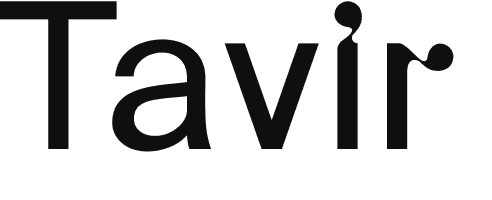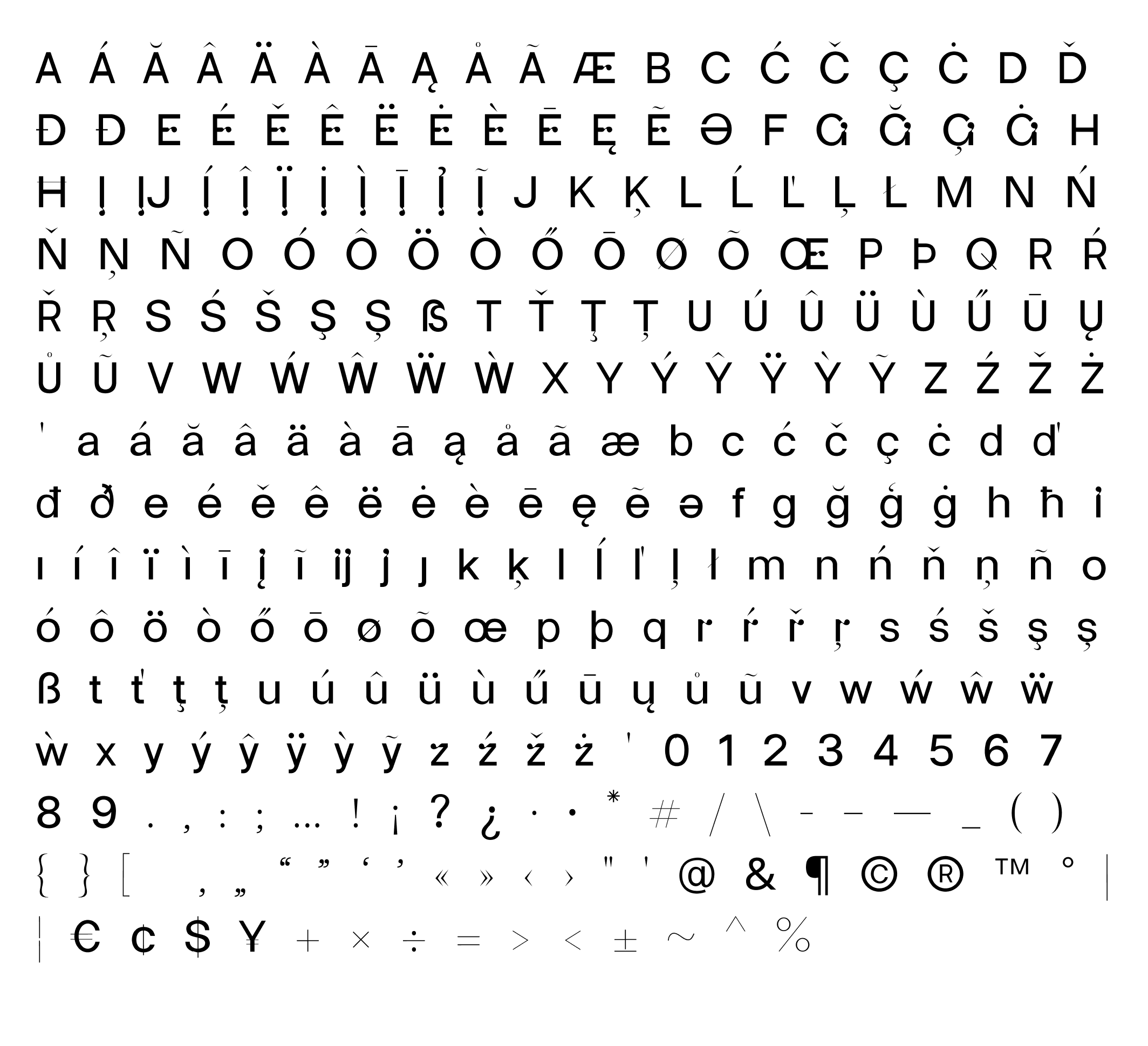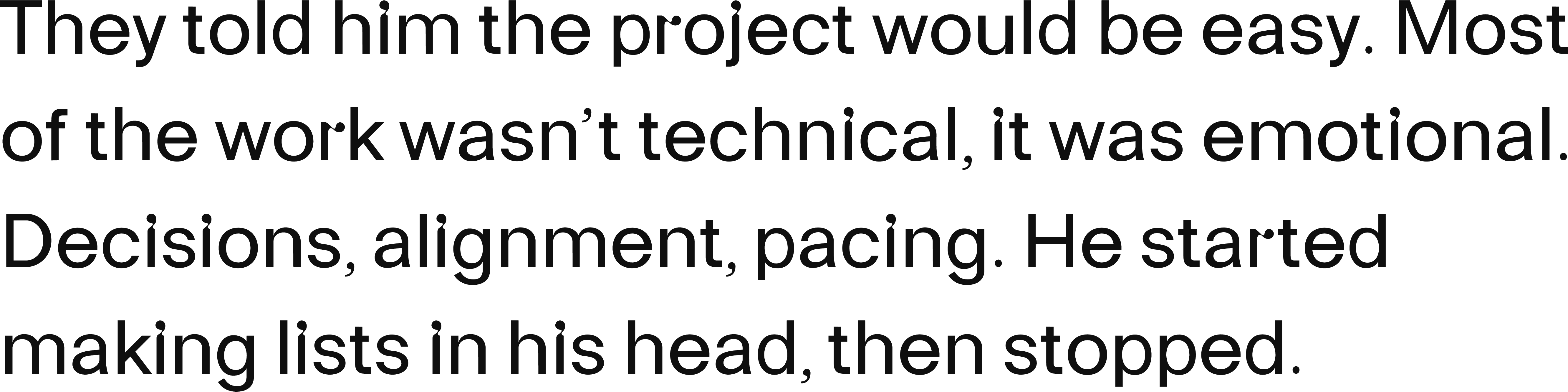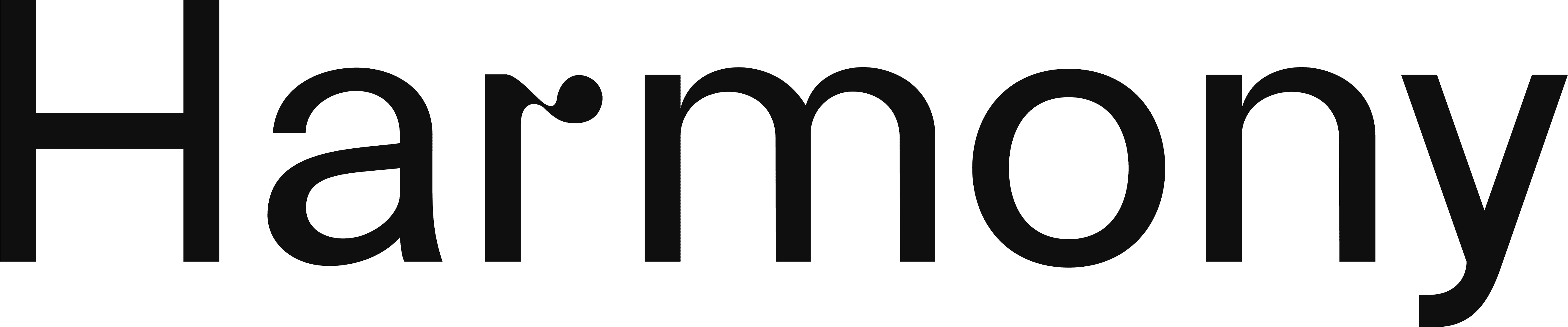
TAVIR is the essential typeface in the collection. Clean, functional, and balanced. It was drawn to disappear into structure, not to impress, but to support.
Every shape is built for rhythm. Nothing interrupts. It’s timeless, but not nostalgic. Sharp where it needs to be. Generous where it matters. TAVIR isn’t the voice. It’s the framework that holds it.